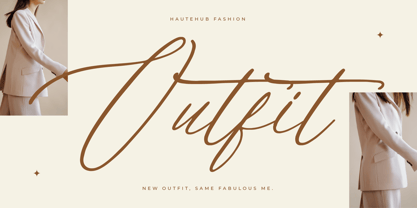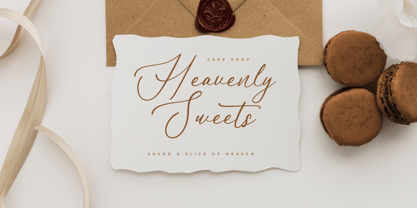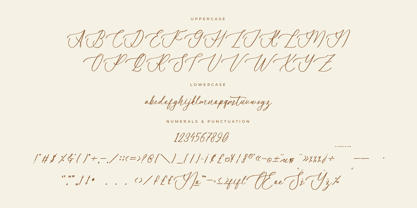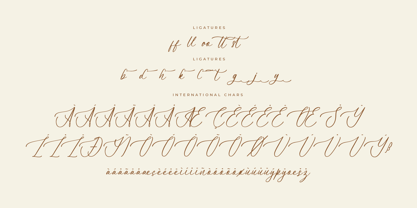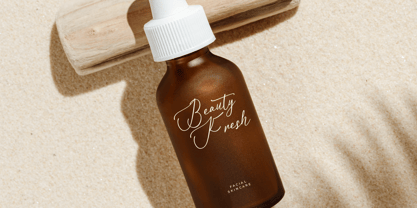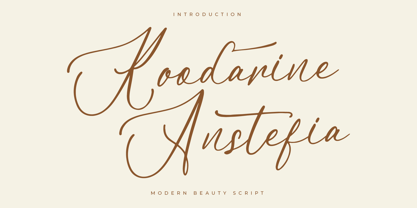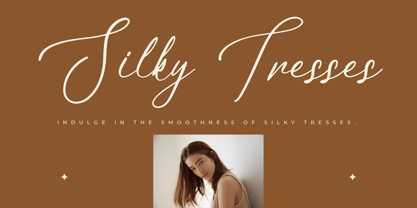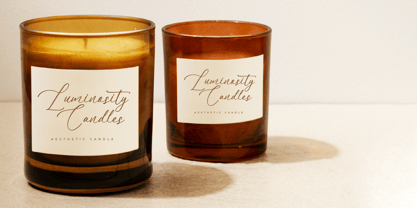
Koodarine Anstefia
by Letterena Studios
The Koodarine Anstefia Font Family was designed by Heru Utama Putra and published by Letterena Studios. Koodarine Anstefia contains 2 styles and family package options. More about this family
Koodarine Anstefia is a contemporary, chic signature script font radiating modernity and sophistication. Its fluid strokes and intricate details imbue elegance into every letter, making it perfect for branding, logos, invitations, and more. With its stylish flair, it elevates any design with a touch of class and luxury.